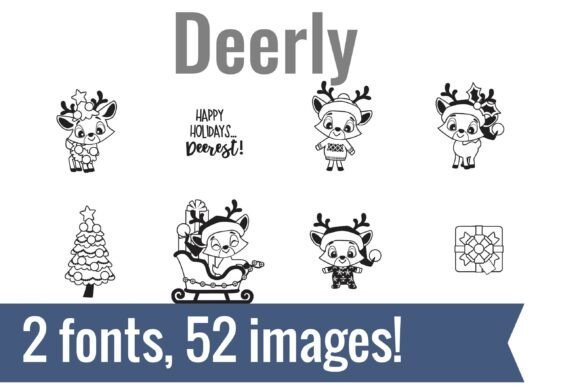
Introduction to Deerly Dingbats Font
Unlock endless creativity with two perfectly coordinated fonts.
There are two dingbat fonts in this bundle, both featuring the cutest Christmas reindeer Capture the innocent charm of the season with the Deerly font set , a delightful pairing of two dingbat typefaces featuring an array of charming, wide-eyed fawn and reindeer characters.
Key Features of Deerly Dingbats Font